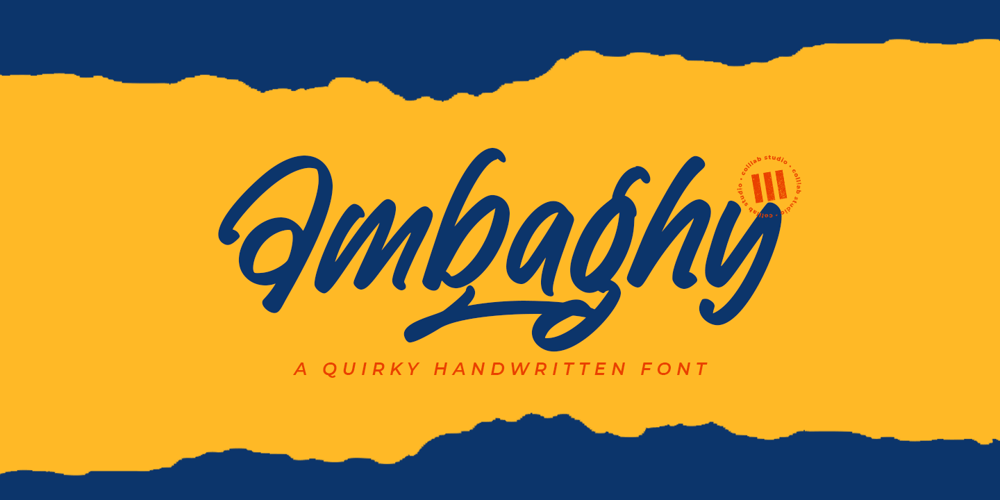
Ambaghy
Ambaghy font
Ambaghy Font Family was designed by Muh. Aswar, Awaluddin Syarif and published by Colllab Studio. Ambaghy contains 1 styles and family package options. “Hi there, thank you for passing by. Colllab Studio is here. We crafted best collection of typefaces in a variety of styles to keep you covered for any project that comes your way!Ambaghy is a goofy font that’s elevated by its posh, handwritten style. It will spice up your designs and add a unique feel to your design and it just might be the secret ingredient you’ve been missing.We’ve spent years honing our craft to create the most unique and original fonts like Ambaghy. We were inspired by the wild creativity that flows from our hands, and we want to share that inspiration with you.Ambaghy works great for logos and headlines, and also works well in text blocks of body copy.A Million ThanksColllab Studiowww.colllabstudio.com